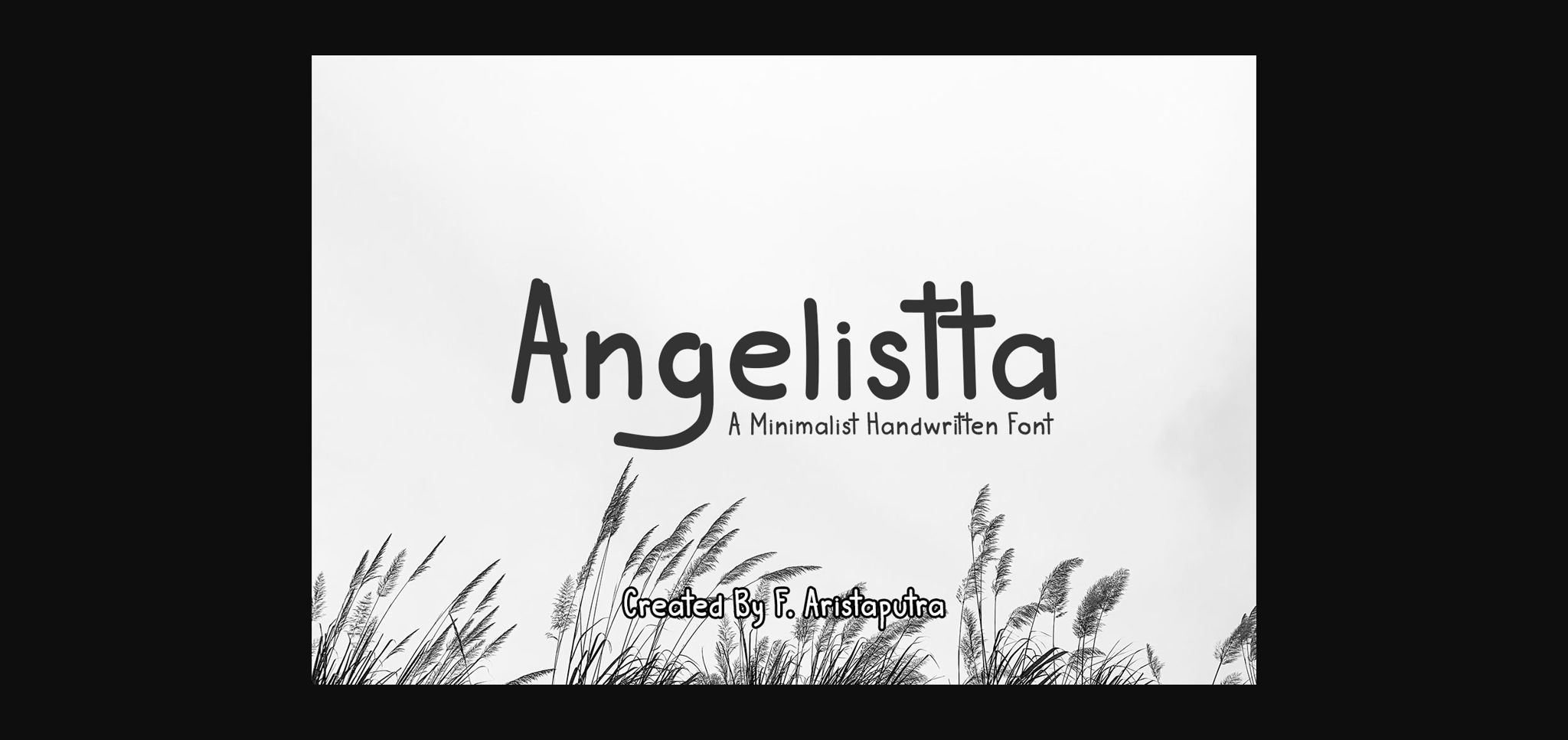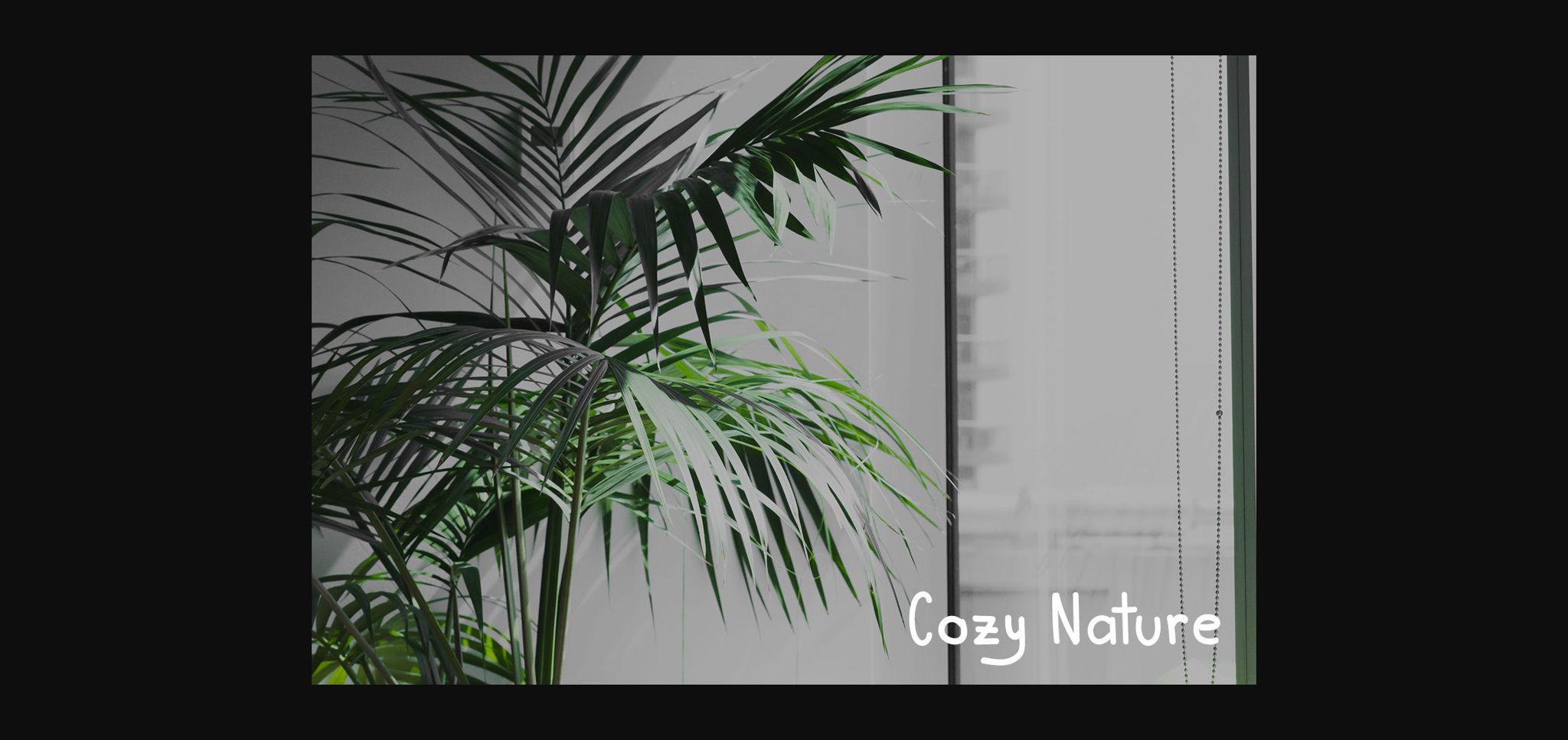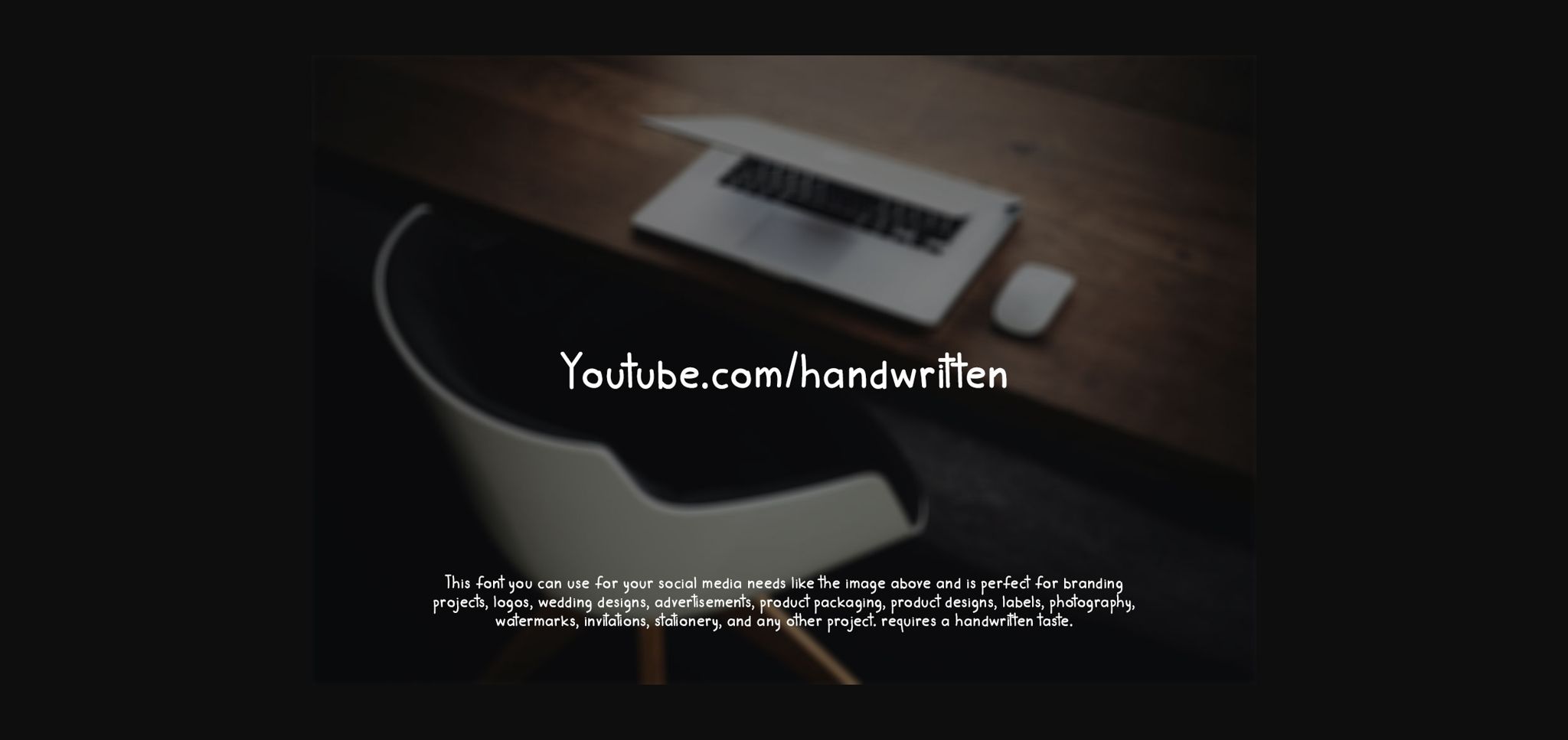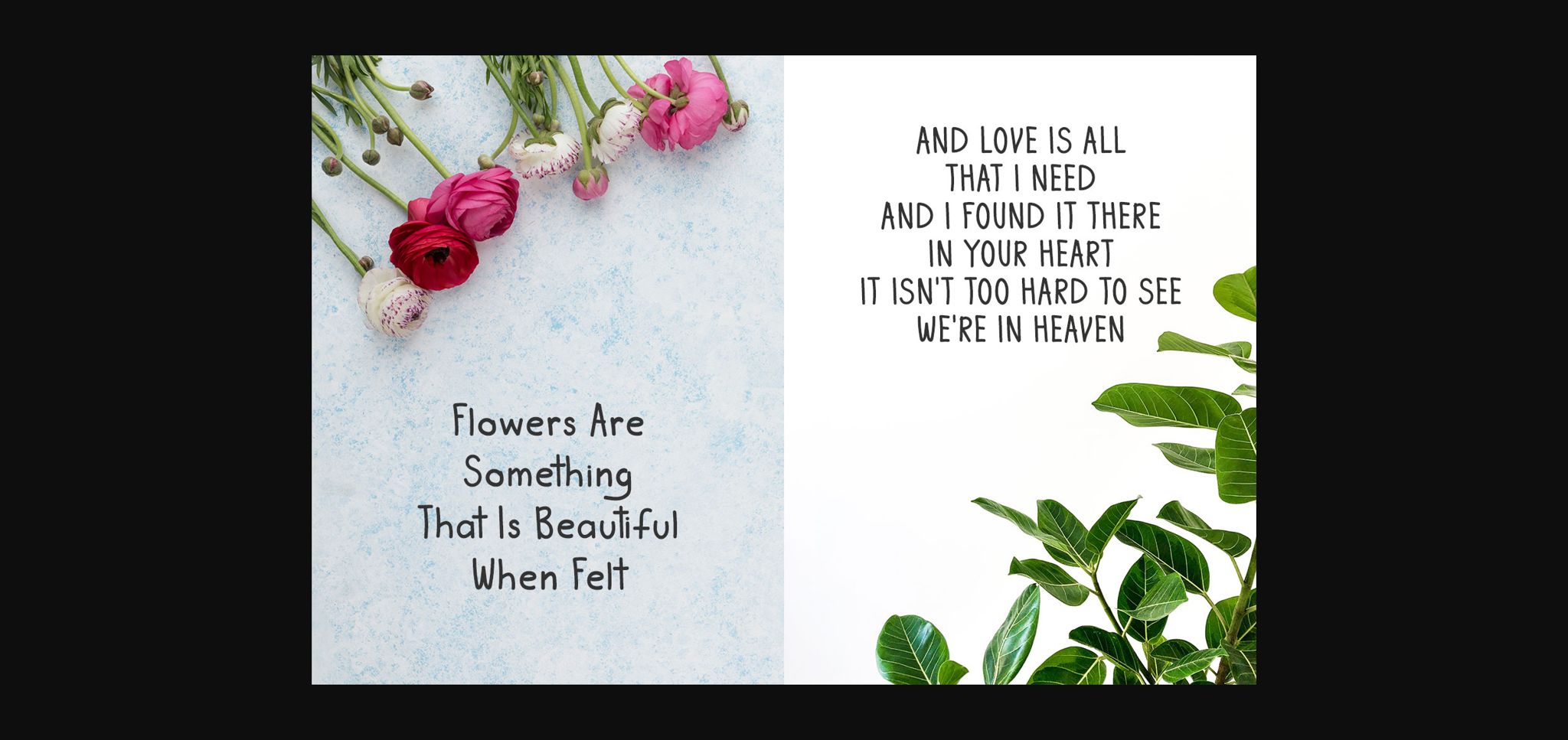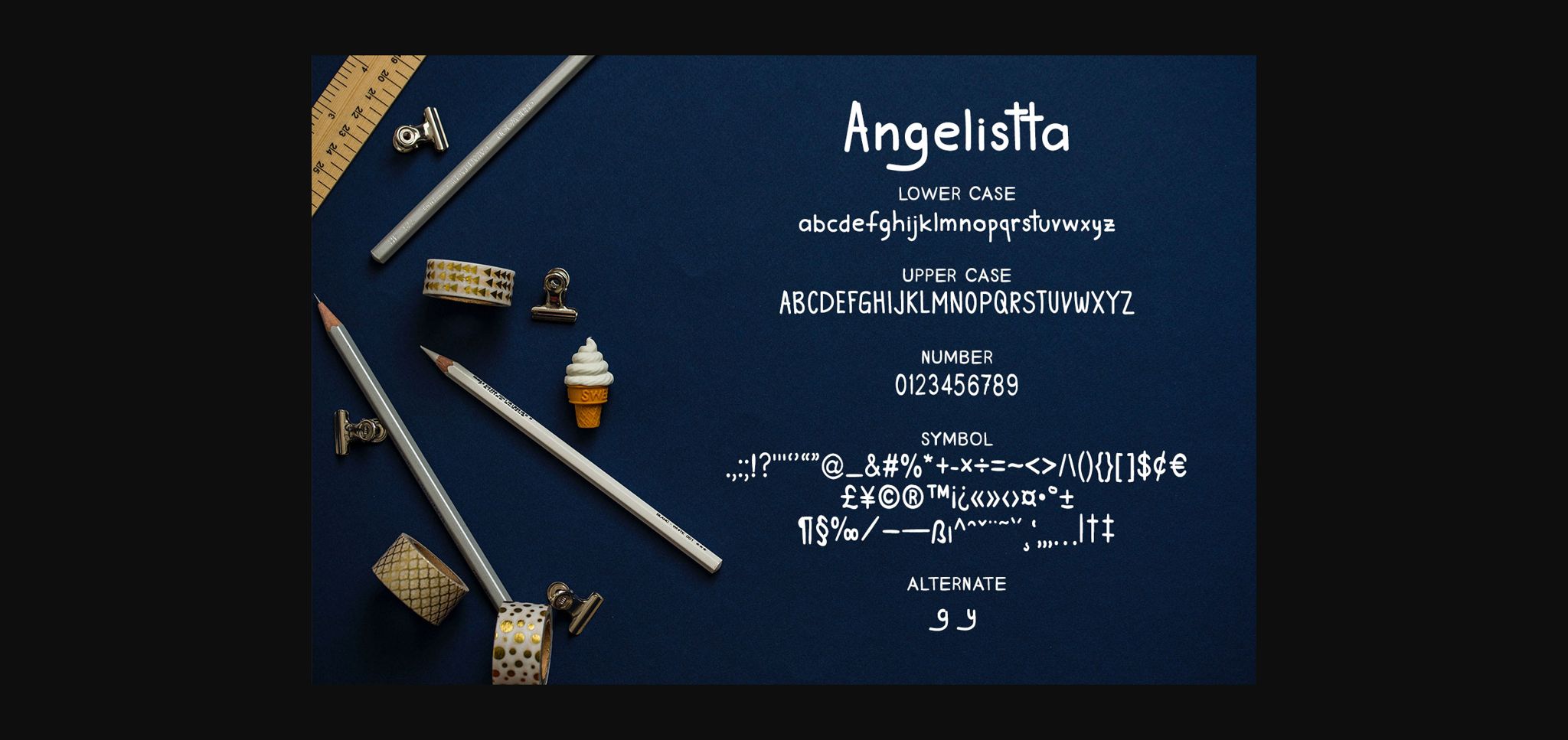
Angelistta Font
About Angelistta Font
Angelistta is more than just a typeface; it’s a testament to the timeless allure of minimalism and elegance in the world of sans serif fonts. With its clean lines, refined proportions, and understated sophistication, Angelistta has established itself as a versatile choice for a myriad of design projects, effortlessly enhancing their visual appeal and ensuring they leave a lasting impression.
At the core of Angelistta’s appeal lies its remarkable versatility. Whether you’re crafting a corporate presentation, designing a sleek website interface, or curating an editorial layout, Angelistta seamlessly integrates into any creative concept with grace and finesse. Its adaptable nature allows it to complement a wide range of design styles and objectives, making it a go-to choice for designers seeking a font that can effortlessly elevate their projects.
One of Angelistta’s standout features is its ability to maintain clarity and legibility across various platforms and screen sizes. Whether viewed on desktops, mobile devices, or printed materials, Angelistta’s crisp and well-defined characters ensure optimal readability, enhancing the user experience and engagement. This inherent readability also extends to search engine optimization (SEO), as Angelistta’s clean design contributes to improved visibility and discoverability online.
Furthermore, Angelistta’s minimalist aesthetic lends itself well to the modern design landscape, where simplicity and sophistication are highly valued. Its sleek and uncluttered appearance allows it to make a statement without overwhelming the viewer, creating a sense of harmony and balance in any design composition. Whether used for headlines, body text, or graphic elements, Angelistta exudes a sense of refinement that resonates with audiences across various contexts.
In addition to its aesthetic appeal, Angelistta offers practical benefits for designers and marketers alike. Its extensive character set includes a variety of ligatures and stylistic alternates, providing endless opportunities for creative expression and customization. This wealth of options allows designers to create unique combinations that reflect their individual style and vision, further enhancing the distinctiveness of their designs.
In conclusion, Angelistta stands as a testament to the enduring power of minimalism and elegance in design. With its versatility, readability, and refined aesthetic, Angelistta empowers designers to create captivating designs that stand out in a crowded marketplace. Embrace the beauty of Angelistta and elevate your creative projects to new heights of sophistication and distinction.